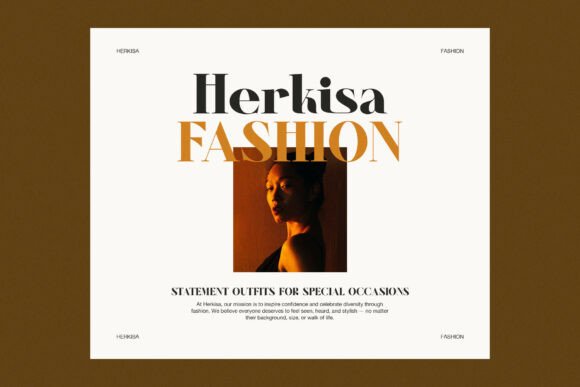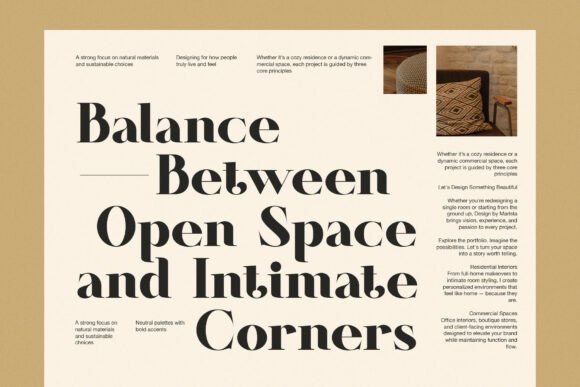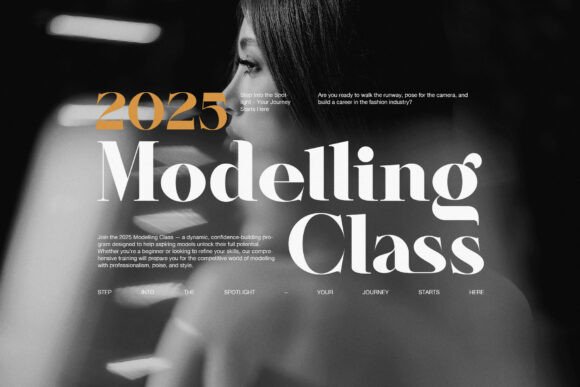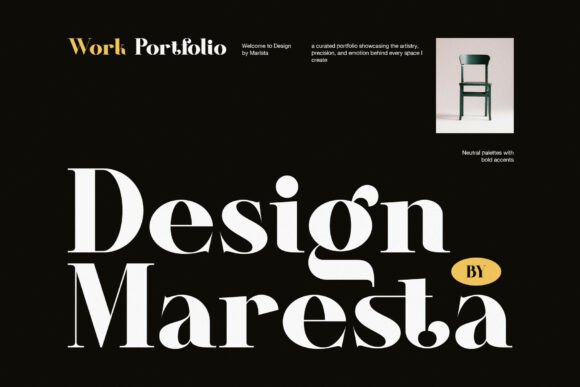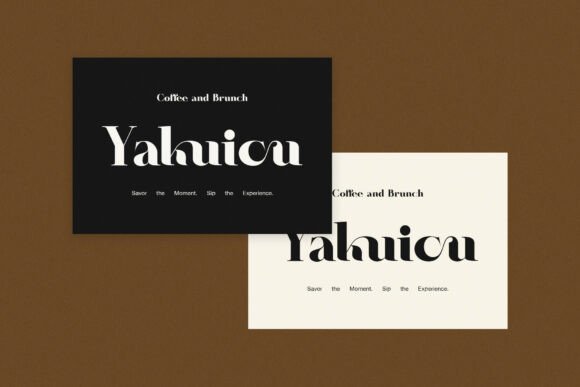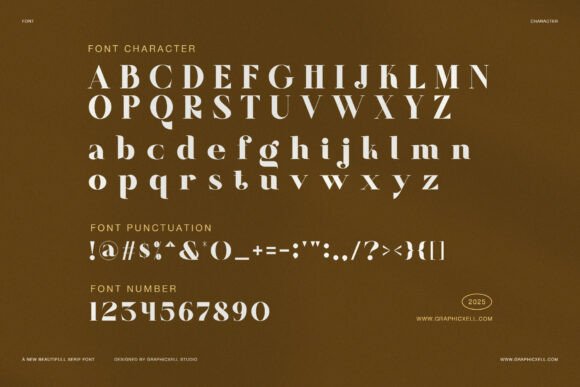
Introduction to Relligo Font
**Relligo Elegant Serif Font** is a clean and graceful serif typeface that blends modern style with timeless beauty.
It was made for designers who want to create elegant and readable layouts Because of its smooth curves and balanced lines, Relligo fits perfectly in branding, magazines, packaging, and wedding designs.
Key Features of Relligo Font